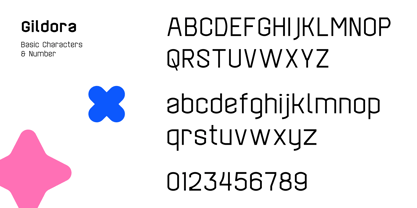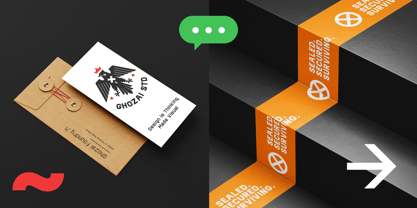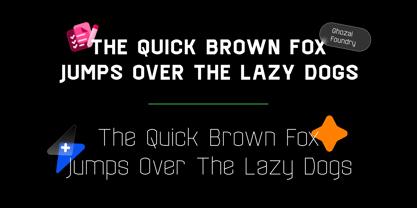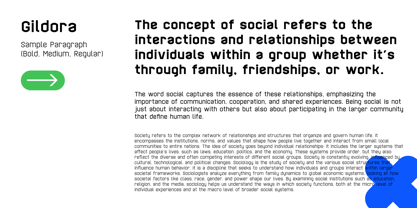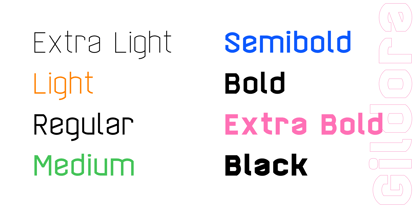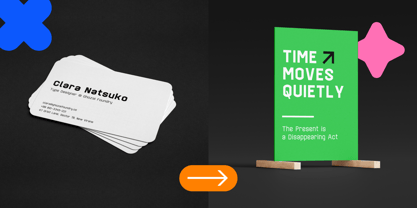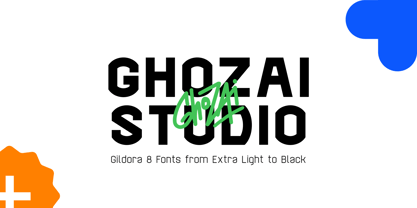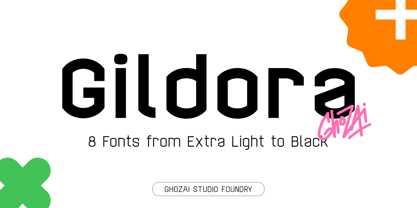
Gildora
von Ghozai Studio
Die Schriftfamilie Gildora wurde von Manzur Ghozaali entworfen und von Ghozai Studio veröffentlicht. Gildora enthält 8 Stile und Familienpaketoptionen. Mehr über diese Familie
Gildora is a grotesk-sans font family that features 8 weights, ranging from Extra Light to Black. With a wide variety of weights, symbols, OpenType features, and multilingual glyph support, Gildora ensures versatility across different languages and design needs. Its modern, clean, bold design makes it ideal for a variety of applications, including display, branding, signage, festival posters, sport, and more. Whether creating impactful headlines, distinctive logos, or clear signage, Gildora delivers both style and functionality. Its flexibility allows it to adapt to different design styles, making it the perfect choice for any project that requires a bold and contemporary touch.
Designer: Manzur Ghozaali
Foundry: Ghozai Studio